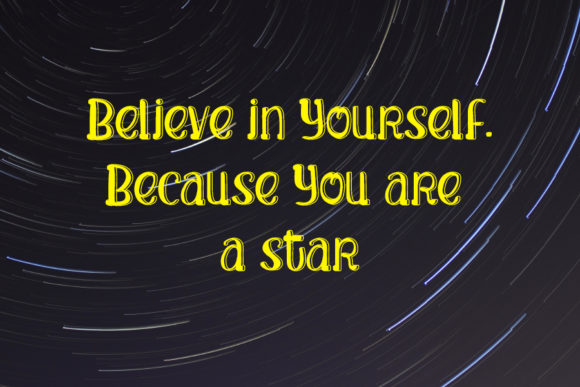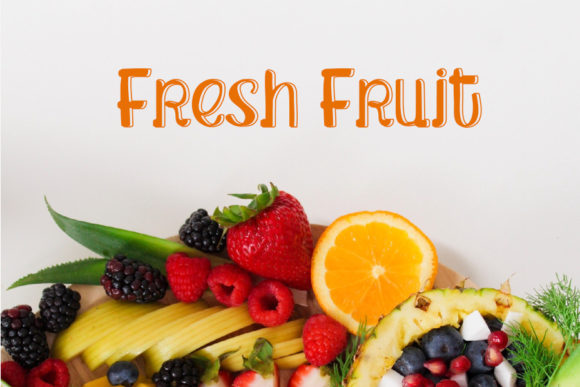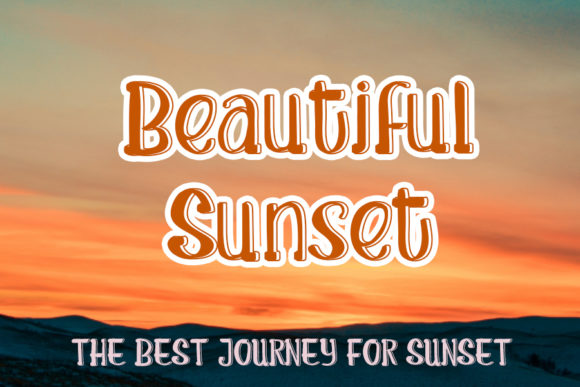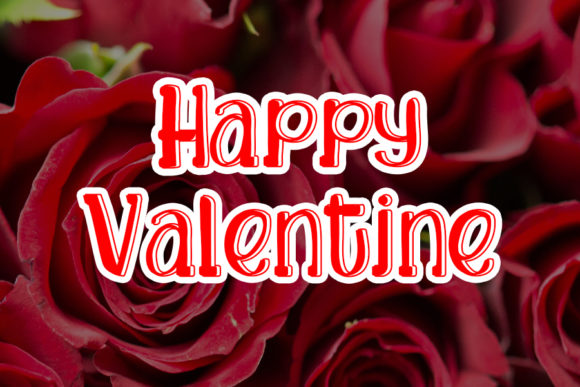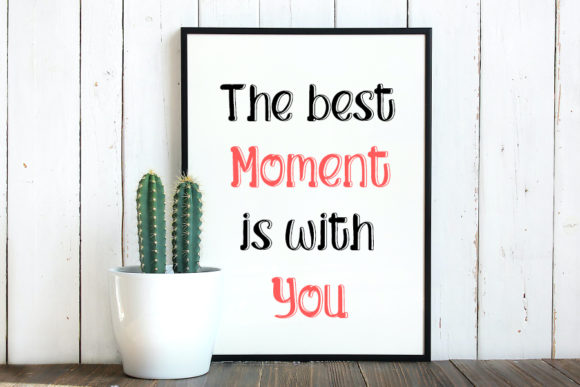
Introducing Cameliya Font: The Sweet and Festive Handwritten Font for Your Design Needs
Are you a designer or crafter looking for a font that can add a touch of joy and festivity to your projects? Look no further than Cameliya Font! This sweet, flowing, and festive handwritten font is perfect for a variety of design ideas, from wedding invitations and party decorations to branding and advertising materials.
What Makes Cameliya Font So Special?
Cameliya Font is a unique and charming font that is sure to capture the hearts of designers and crafters alike. Its gentle, flowing script and sweet letterforms make it perfect for creating beautiful and eye-catching designs. Whether you’re looking to create a whimsical and playful design or a more elegant and sophisticated one, Cameliya Font is the perfect choice.
Features of Cameliya Font
- Sweet and Festive: Cameliya Font has a sweet and festive feel to it, making it perfect for designs that require a touch of joy and celebration.
- Handwritten: This font has a beautiful, handwritten feel that gives it a personal and unique touch.
- Flowing Script: The flowing script of Cameliya Font makes it perfect for creating beautiful and elegant designs.
- Versatile: This font is versatile and can be used for a variety of design ideas, from wedding invitations and party decorations to branding and advertising materials.
- Wedding Invitations: Create beautiful and elegant wedding invitations with Cameliya Font. The font’s flowing script and sweet letterforms make it perfect for wedding designs.
- Party Decorations: Add a touch of festivity to your party decorations with Cameliya Font. Use it to create banners, garlands, and other decorations that will make your party stand out.
- Branding and Advertising: Use Cameliya Font to create unique and eye-catching branding and advertising materials. The font’s sweet and festive feel makes it perfect for creating designs that will capture the attention of your target audience.
In conclusion, Cameliya Font is a sweet, flowing, and festive handwritten font that is perfect for designers and crafters looking to add a touch of joy and festivity to their projects. Its unique and charming letterforms make it perfect for a variety of design ideas, from wedding invitations and party decorations to branding and advertising materials. With its versatility and ease of use, Cameliya Font is sure to become a favorite among designers and crafters.